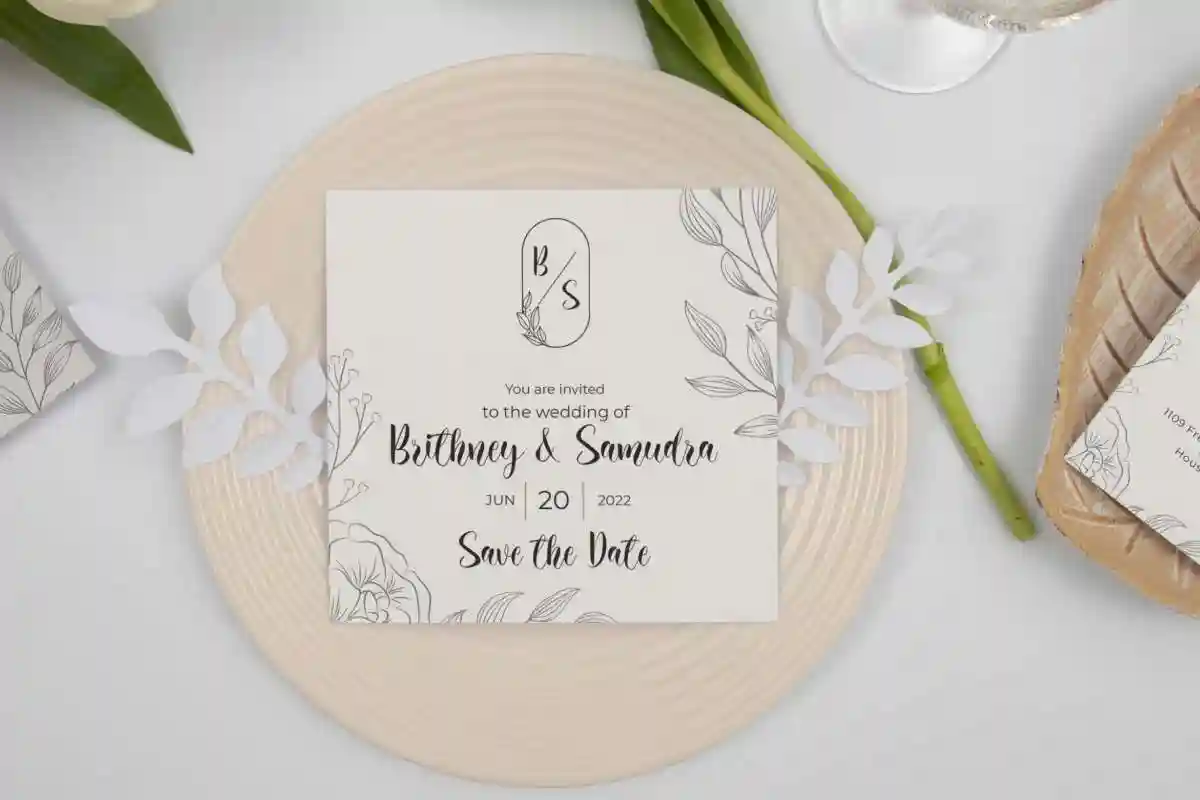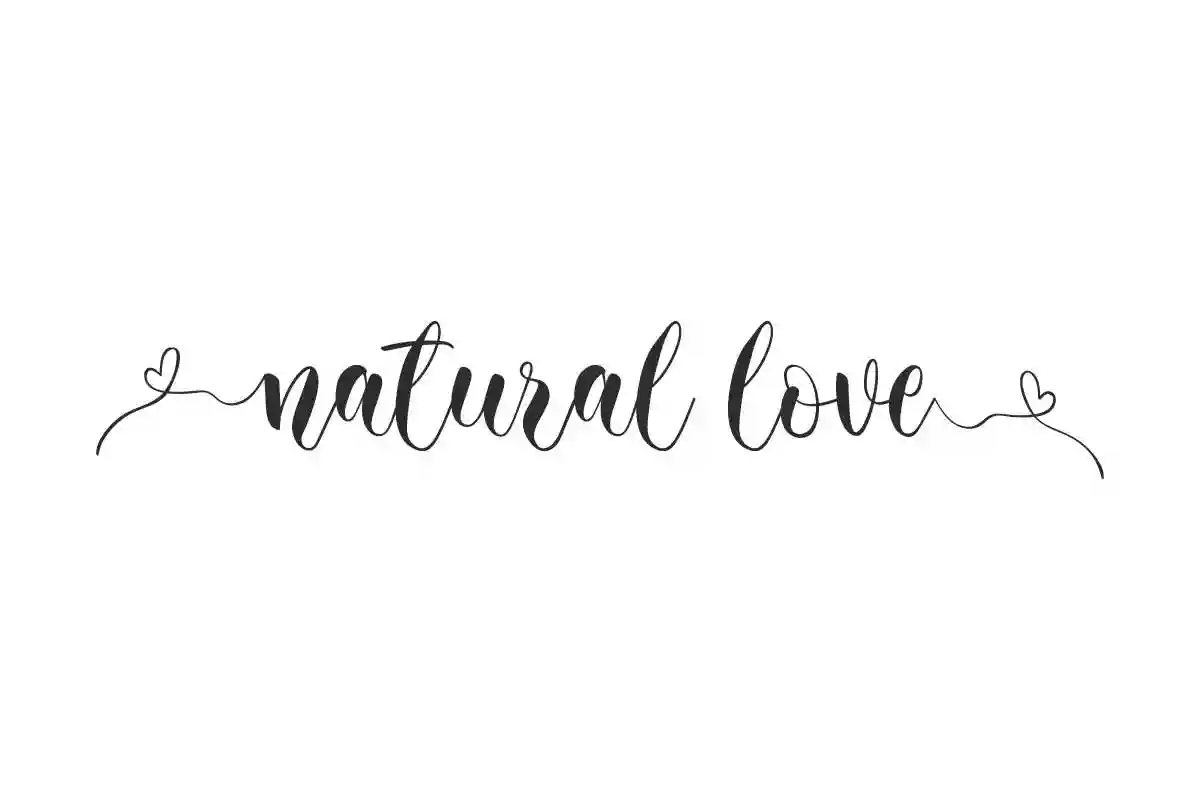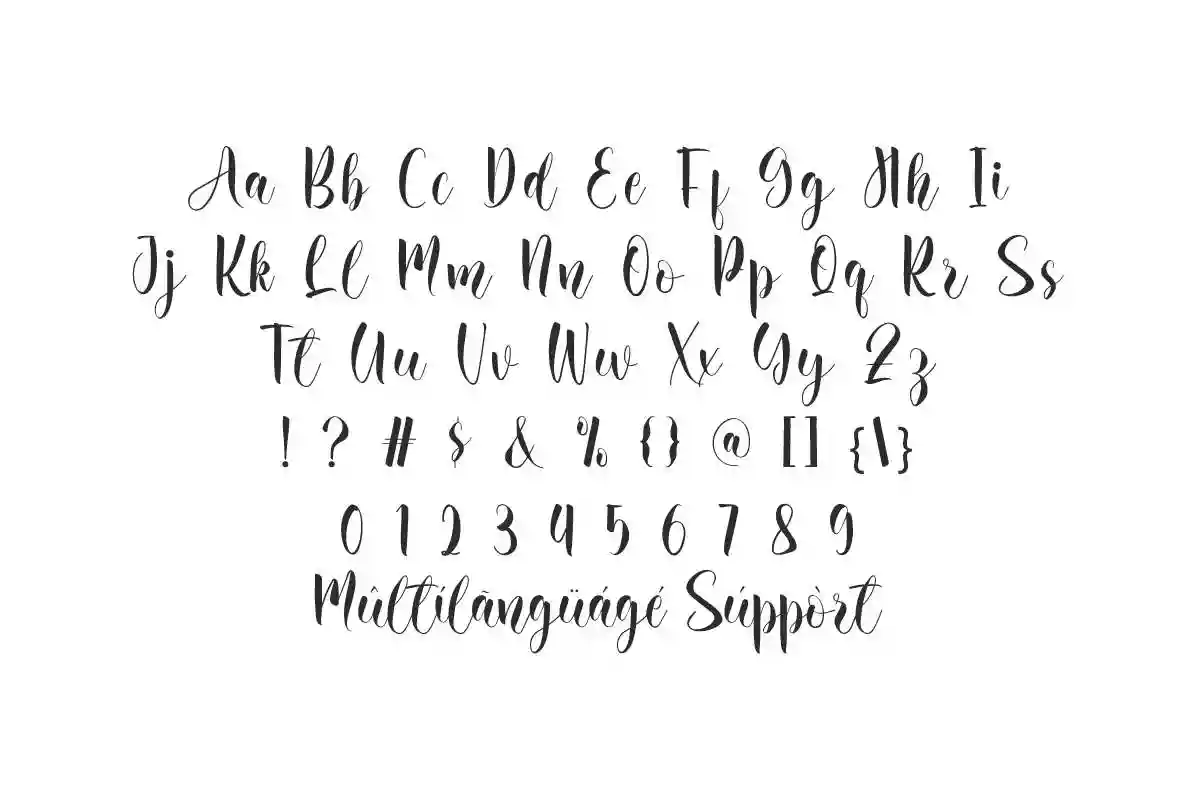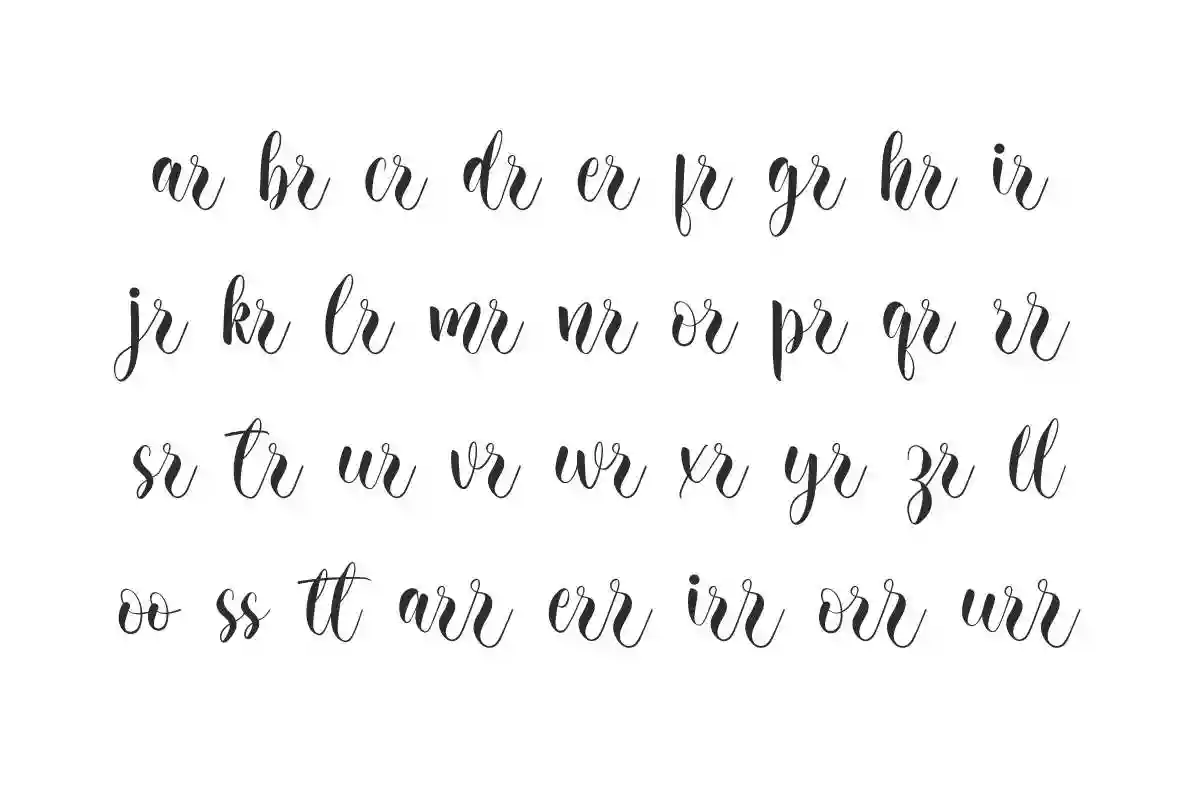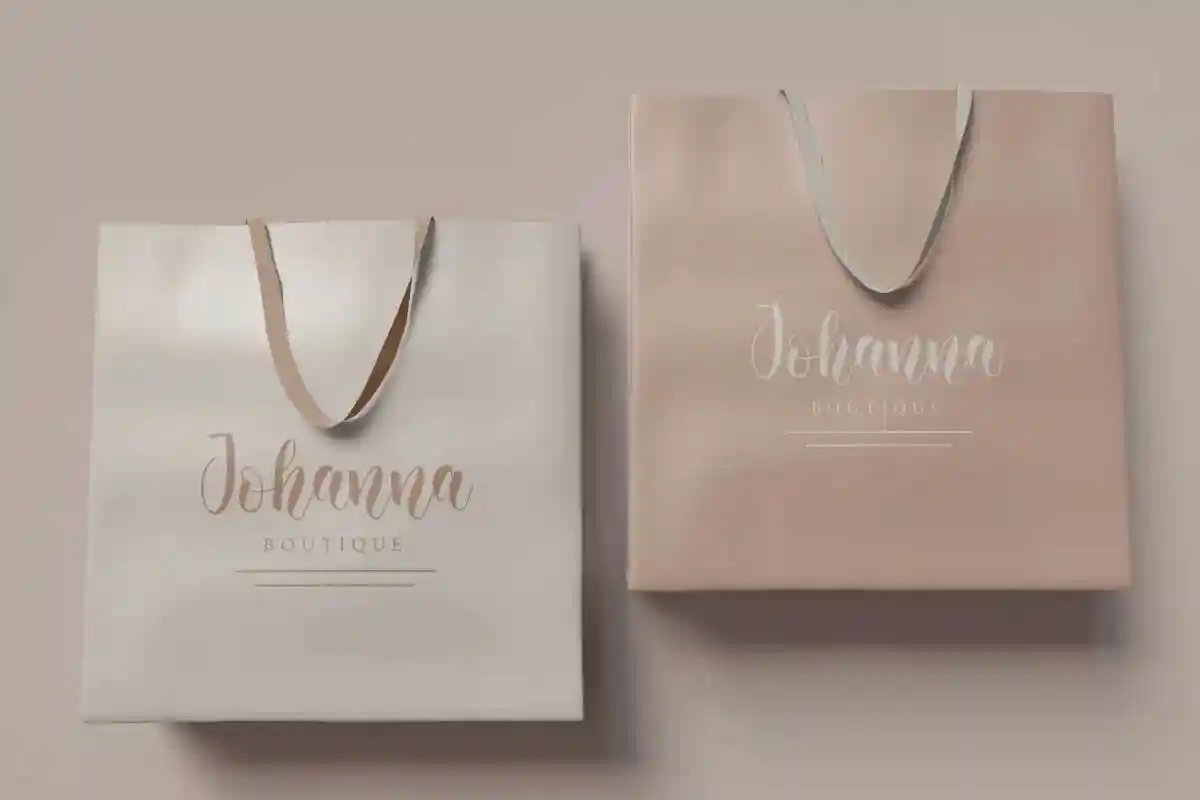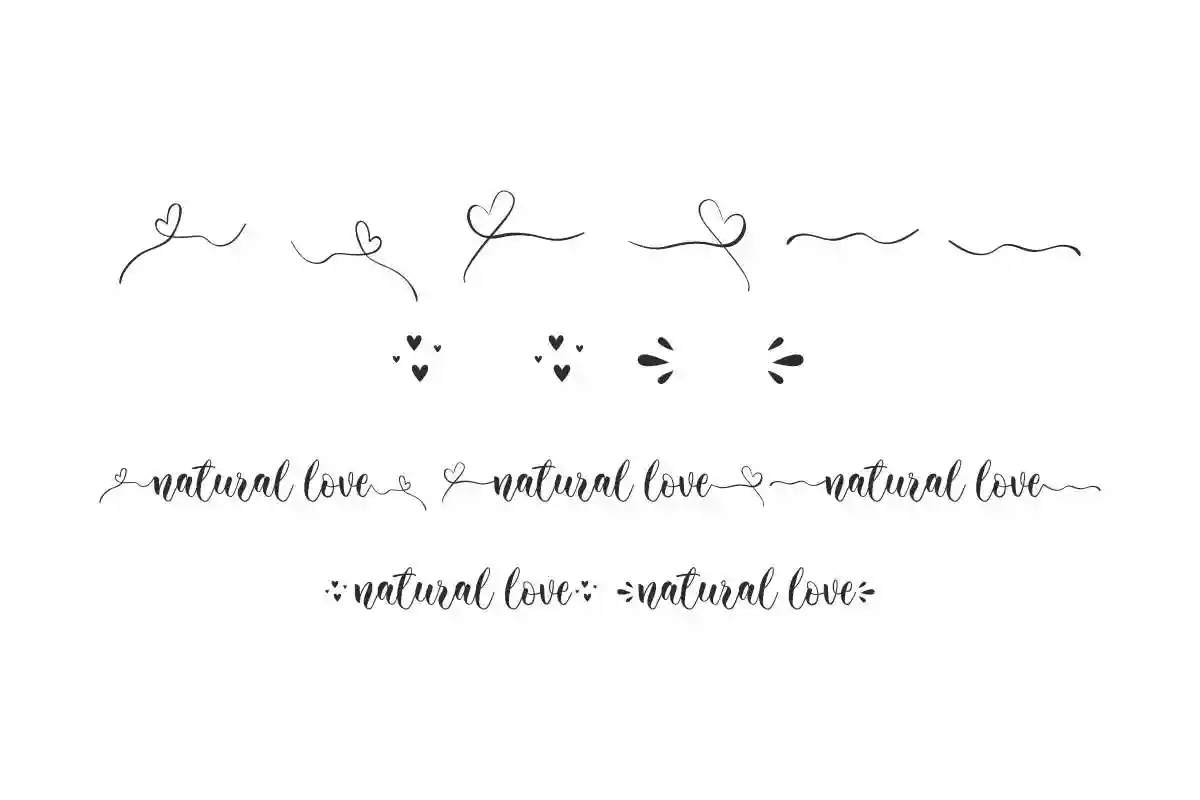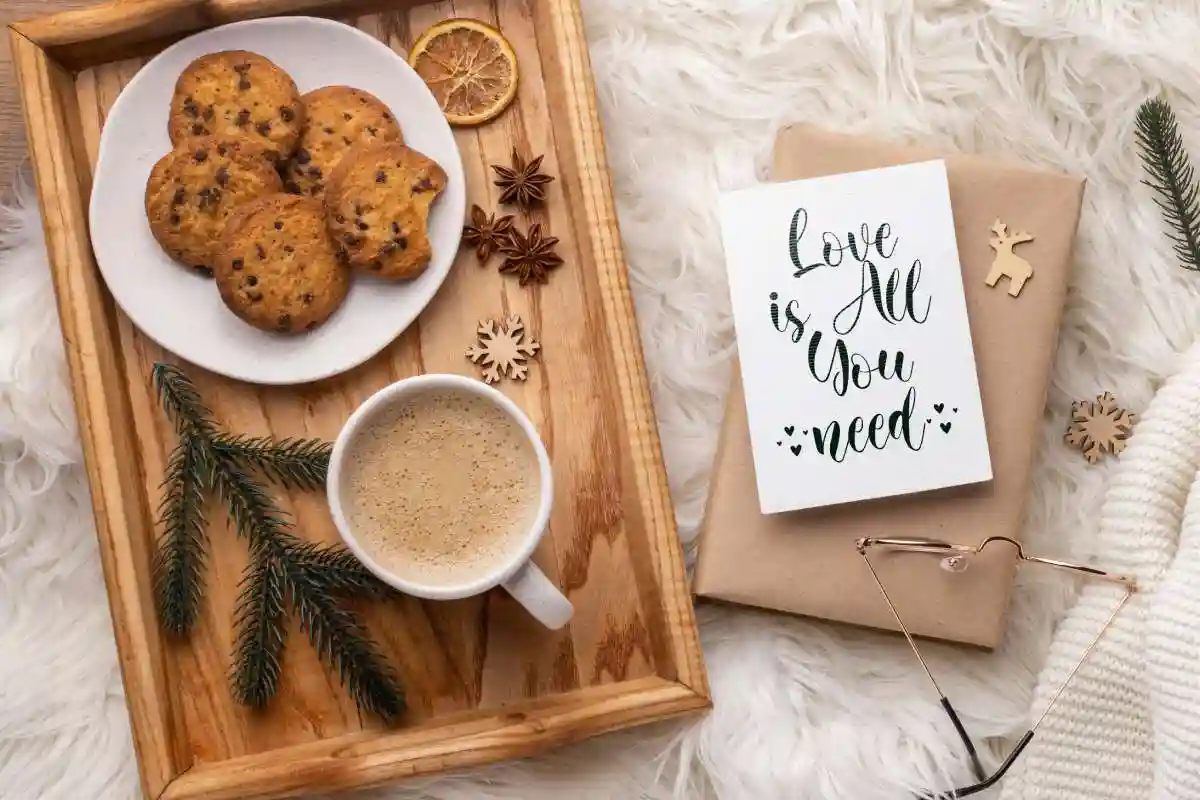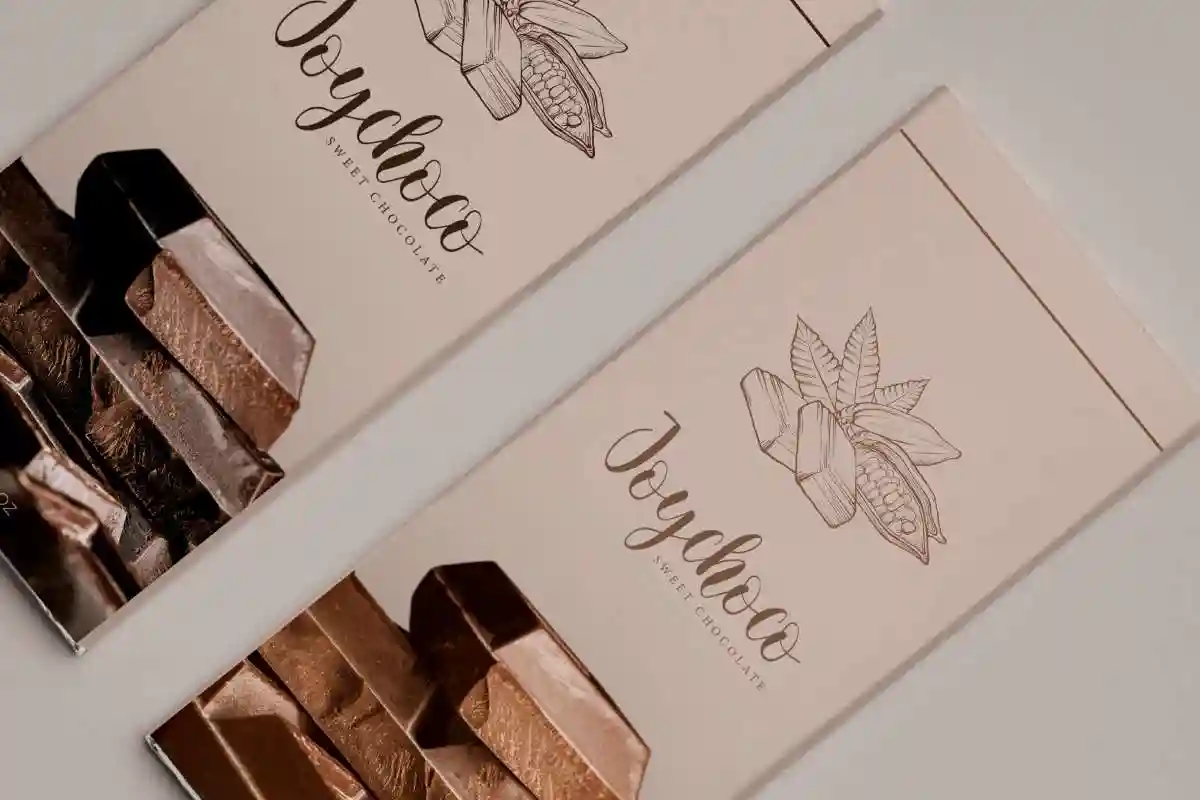
Natural Love Font
Natural Love Font is a classy calligraphy script font with a touch of elegance, created by NihStudio. Use this aesthetic font on invitation designs, snack brand, etc.
Natural Love Font is a beautiful calligraphy style font with love theme. It’s awesome with flawless smooth brushes and easy to read that will add to the beauty of your designs, such as brand logo, brochure, business card, invitation, packaging design, stationery, title, and much more!
Natural Love Font comes with a full set of Uppercase and Lowercase Basic Characters, Number, Punctuation, Symbol. This font is also equipped with various ligature and swoosh characters that make it look perfect. Use this for your business industry such as, artist, bakery, boutique, photography, publishing, snack brand, wedding, writer, etc.